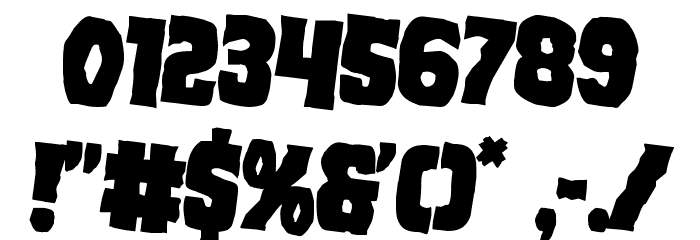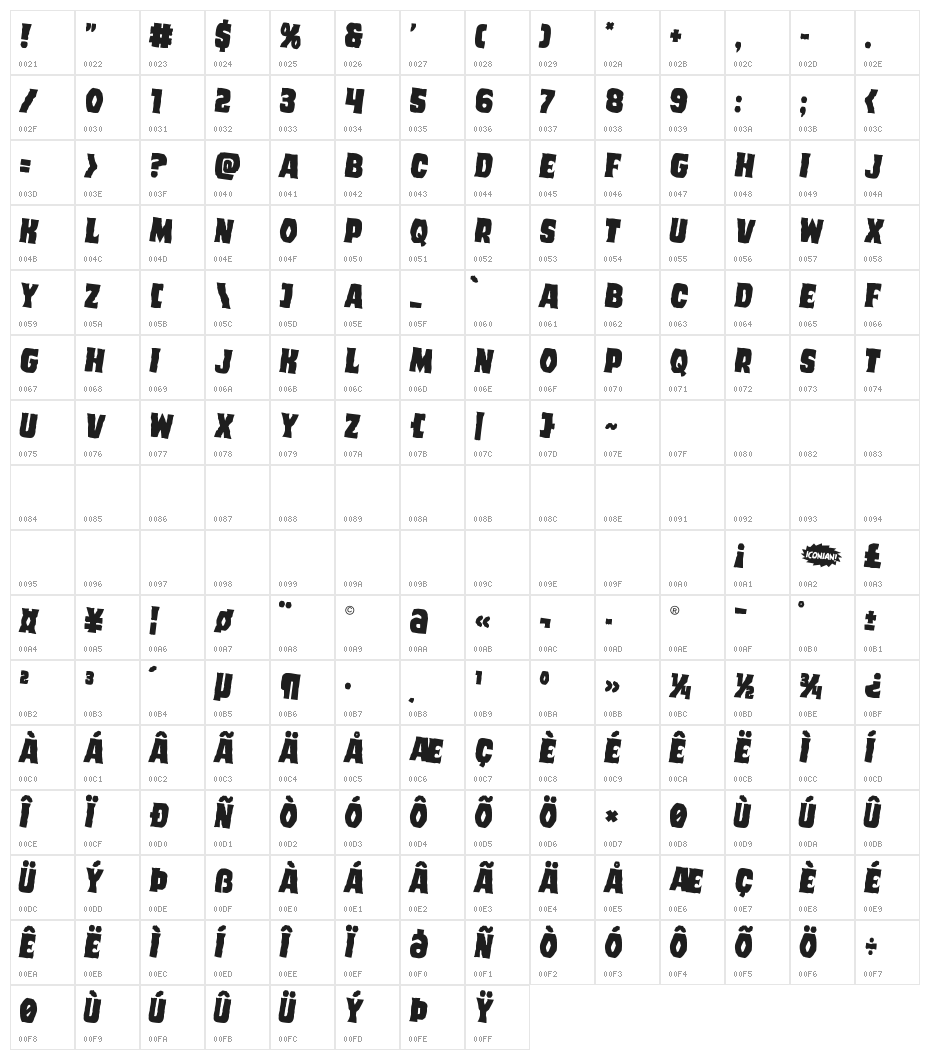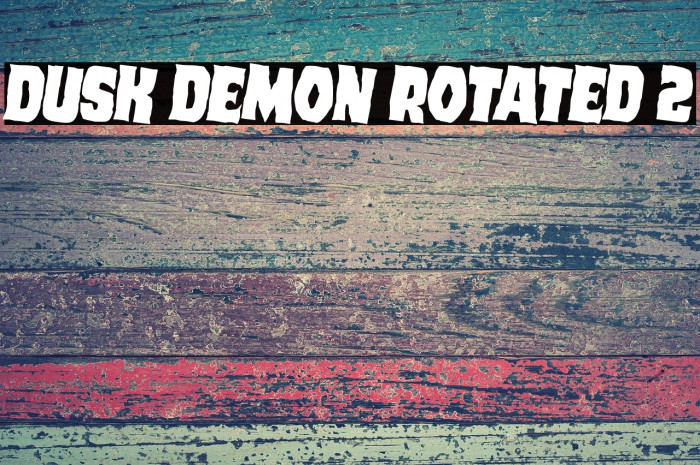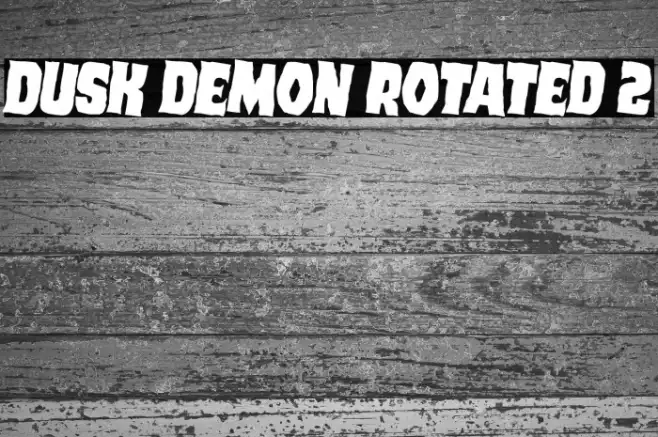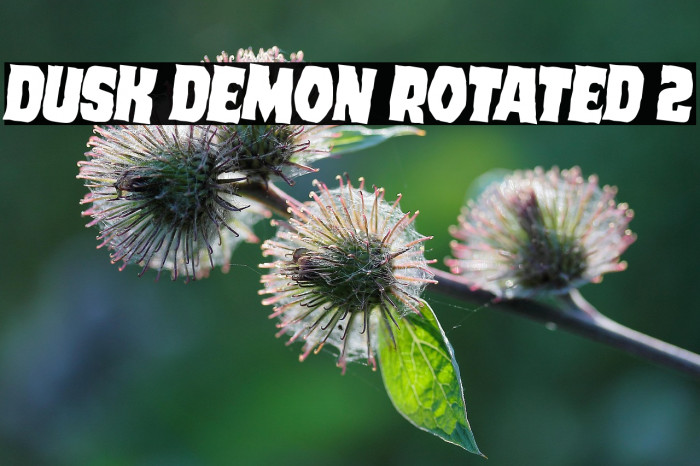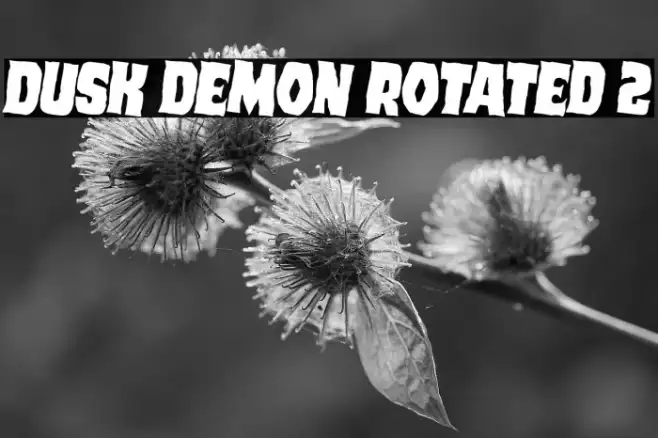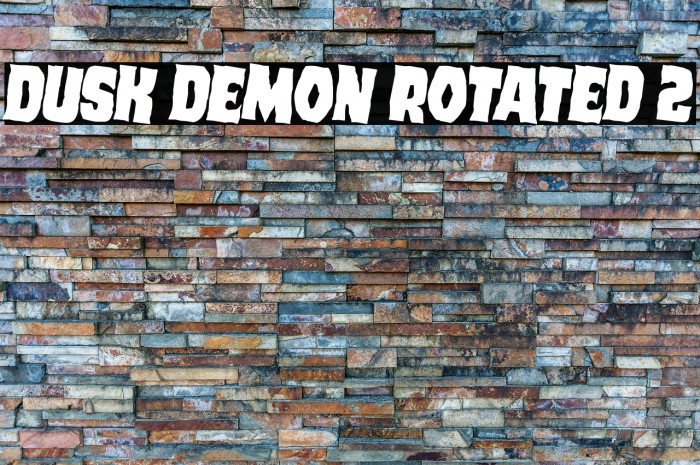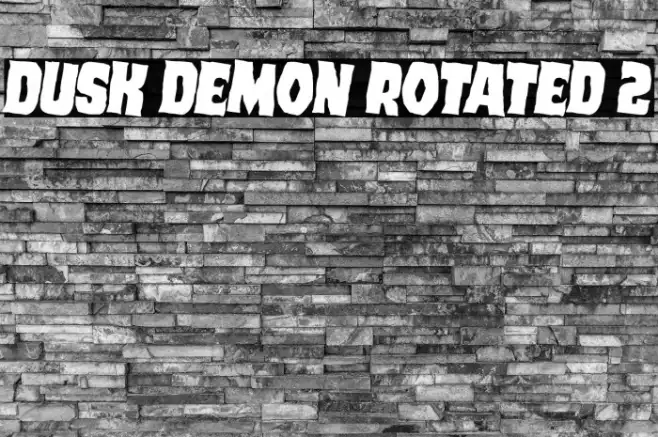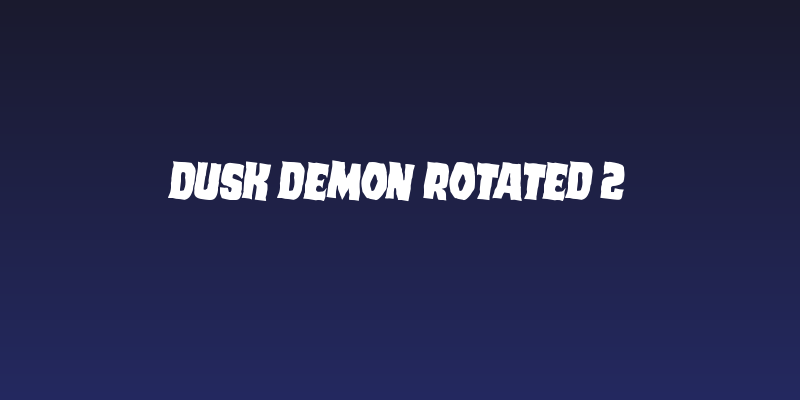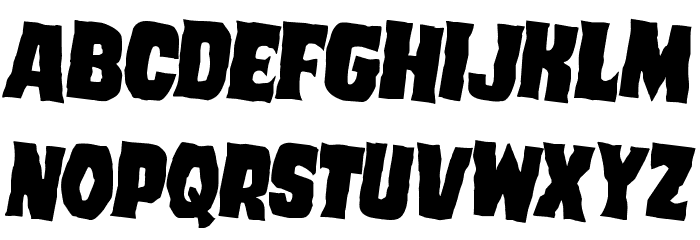
Dusk Demon Rotated 2 Font
Dusk Demon Rotated 2 Description
This font features a bold and dynamic style with a slightly distorted and rugged appearance. The characters are thick and heavy, giving a strong visual impact. The edges are uneven, adding a sense of movement and energy. This style is reminiscent of graffiti or street art, making it ideal for designs that require a bold statement. The font maintains a consistent weight throughout, with wide character spacing that enhances readability despite its unconventional form. The numerals and special characters follow the same design principles, ensuring uniformity across all elements.